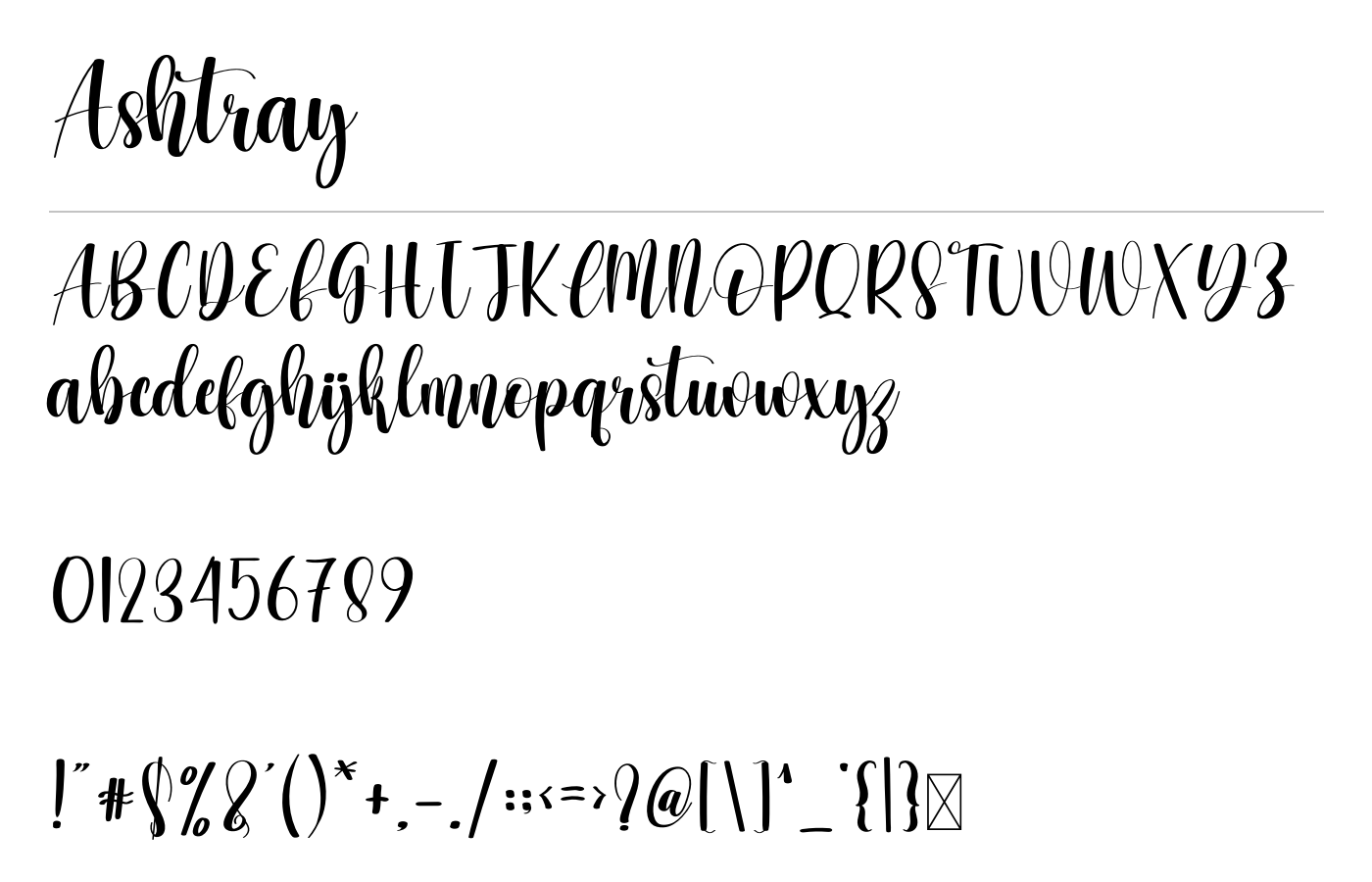
Ashtray Font is a playful and elegant script typeface that combines smooth, flowing strokes with a lively, hand-lettered feel. Its varied line thickness and charming swashes make it perfect for creative branding, invitations, and headlines where a warm, personal touch is desired. This font works best in designs that aim to convey friendliness and artistic flair while maintaining readability.
Ashtray Font
About Ashtray Font